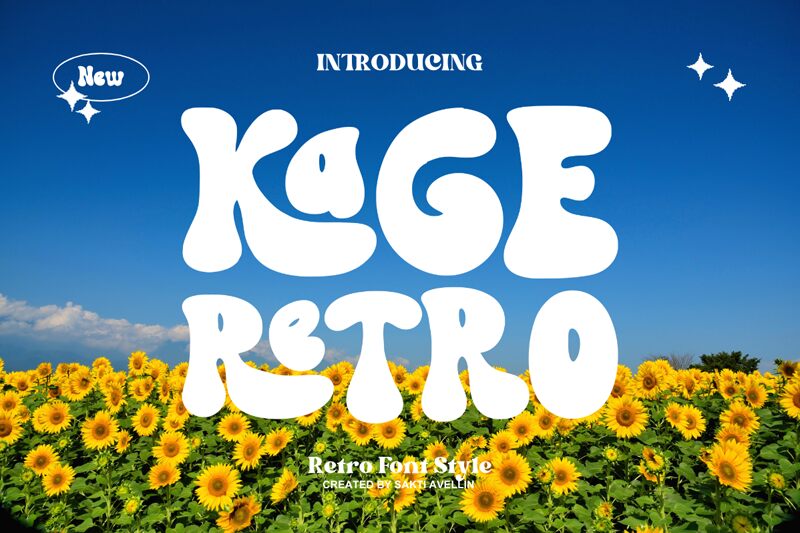
Kage Retro font, designed by Tri Sakti Oktaviano, is a bold display typeface bursting with groovy charisma. Its playful curves and dynamic flair make it perfect for designs that demand attention and a retro touch.
This free font commands a vibrant presence in posters, logos, and branding projects where creativity takes center stage. Perfect for injecting energy into your design work, Kage Retro adds a distinctive vintage charm that's hard to ignore.